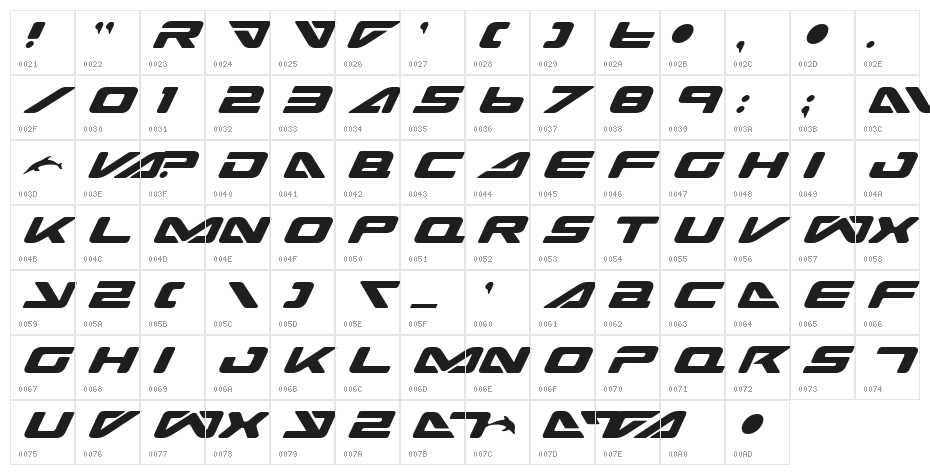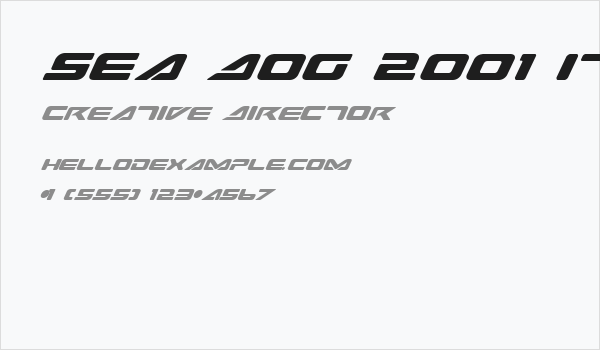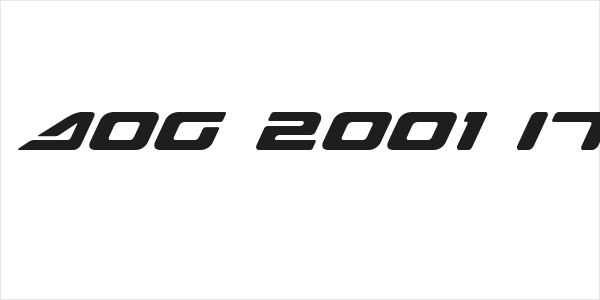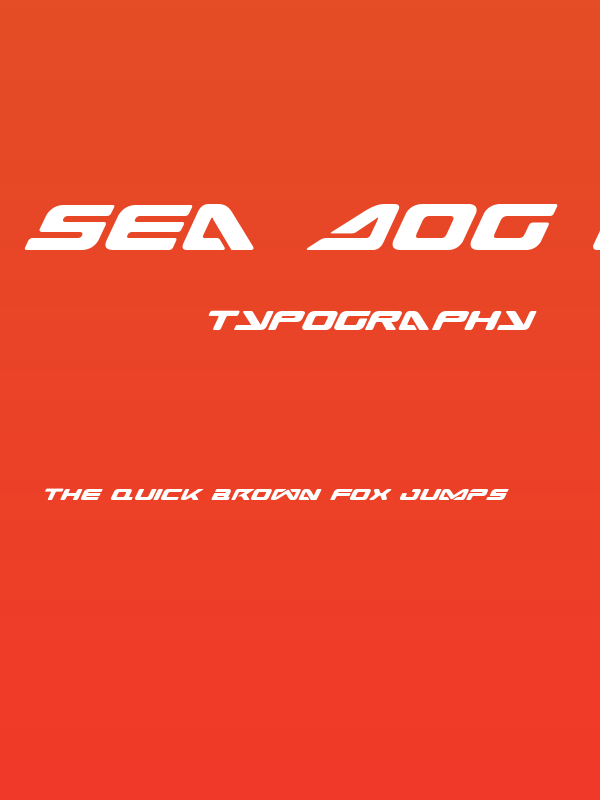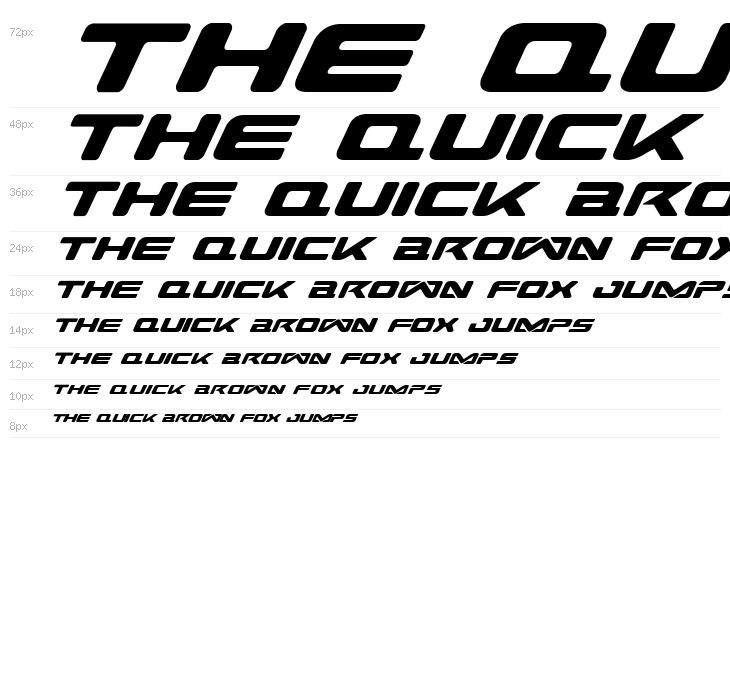
Sea Dog 2001 Italic Font
Sea Dog 2001 Italic Description
This font features a futuristic and dynamic design with a strong italic slant, giving it a sense of motion and speed. The characters are bold and angular, with sharp edges and a geometric structure that conveys a modern and technological feel. The uppercase and lowercase letters maintain a consistent style, while the numerals and special characters complement the overall aesthetic. The font's unique style makes it suitable for projects that require a bold and eye-catching appearance.
| Proposed Projects | Ideal for sci-fi themed designs, video game graphics, technology branding, and dynamic posters. |